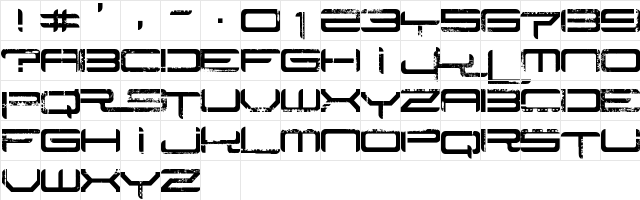
Rysky Line Regular Free Font
Rysky Line Regular
Design Context for Rysky Line
Rysky Line is a composed and adaptable typeface that performs quietly and consistently across a wide range of design contexts.